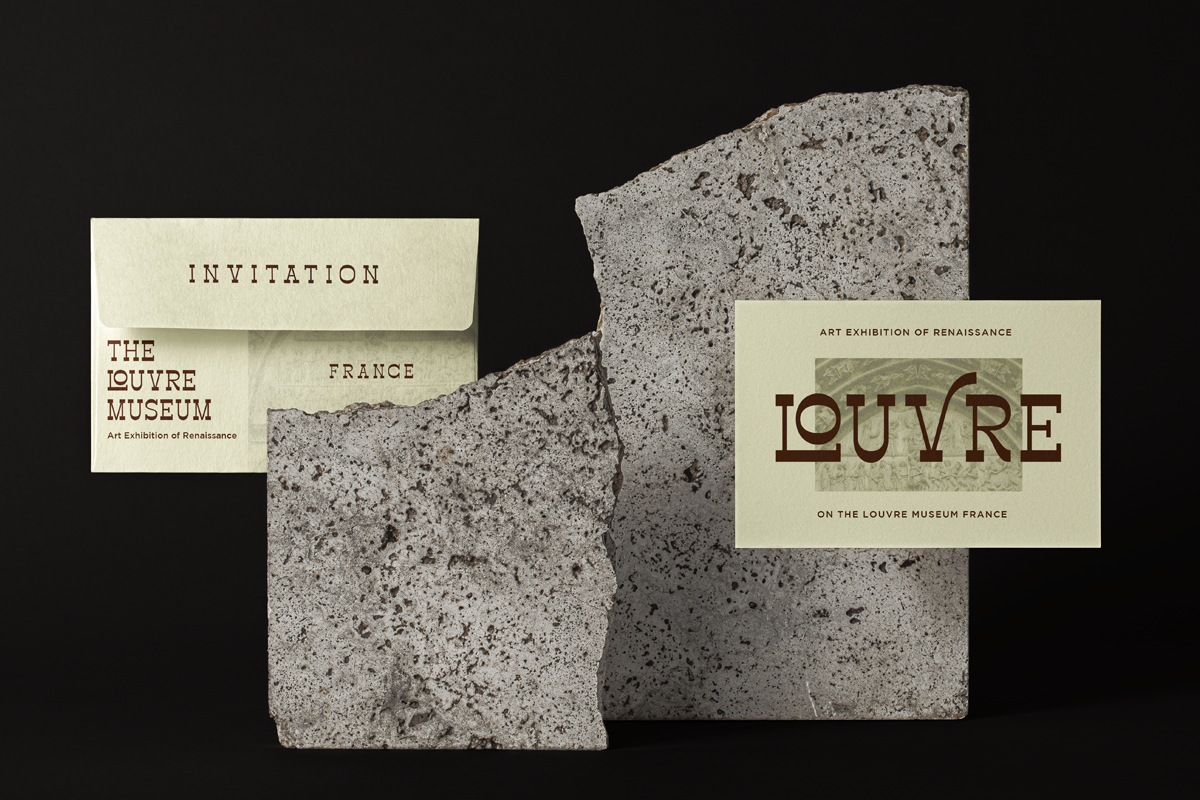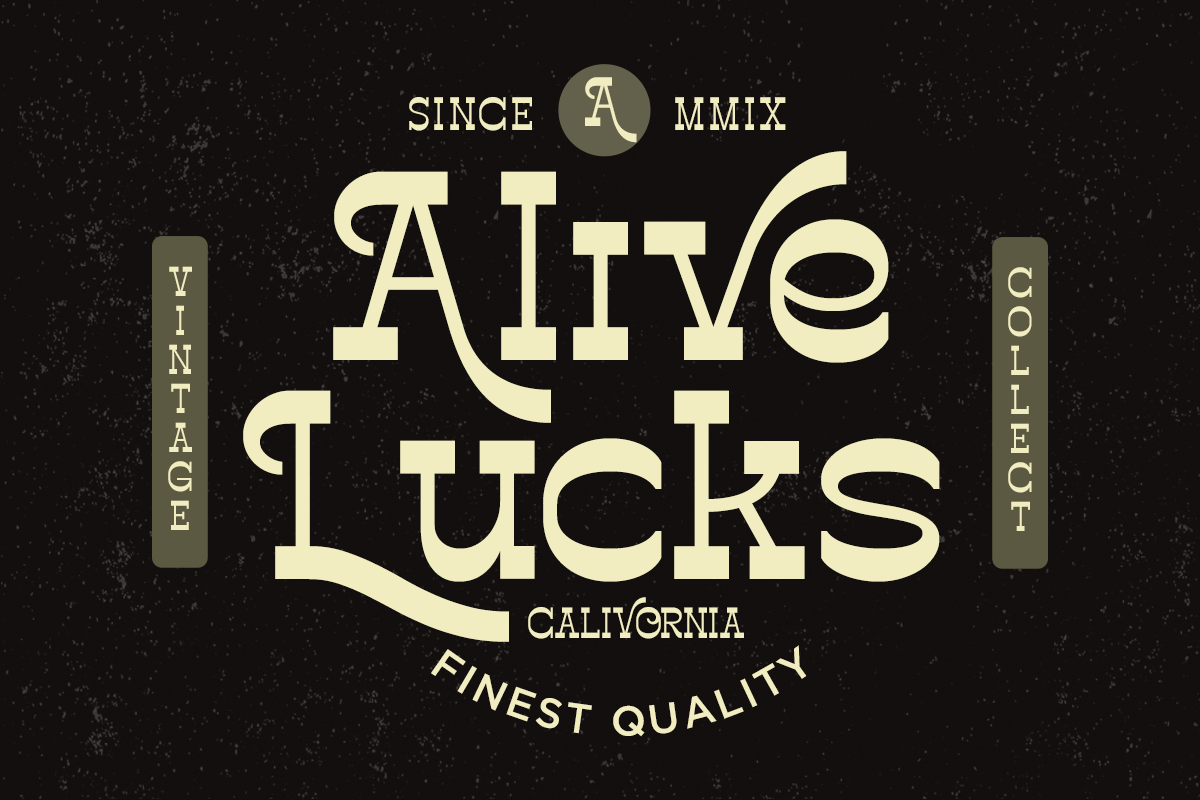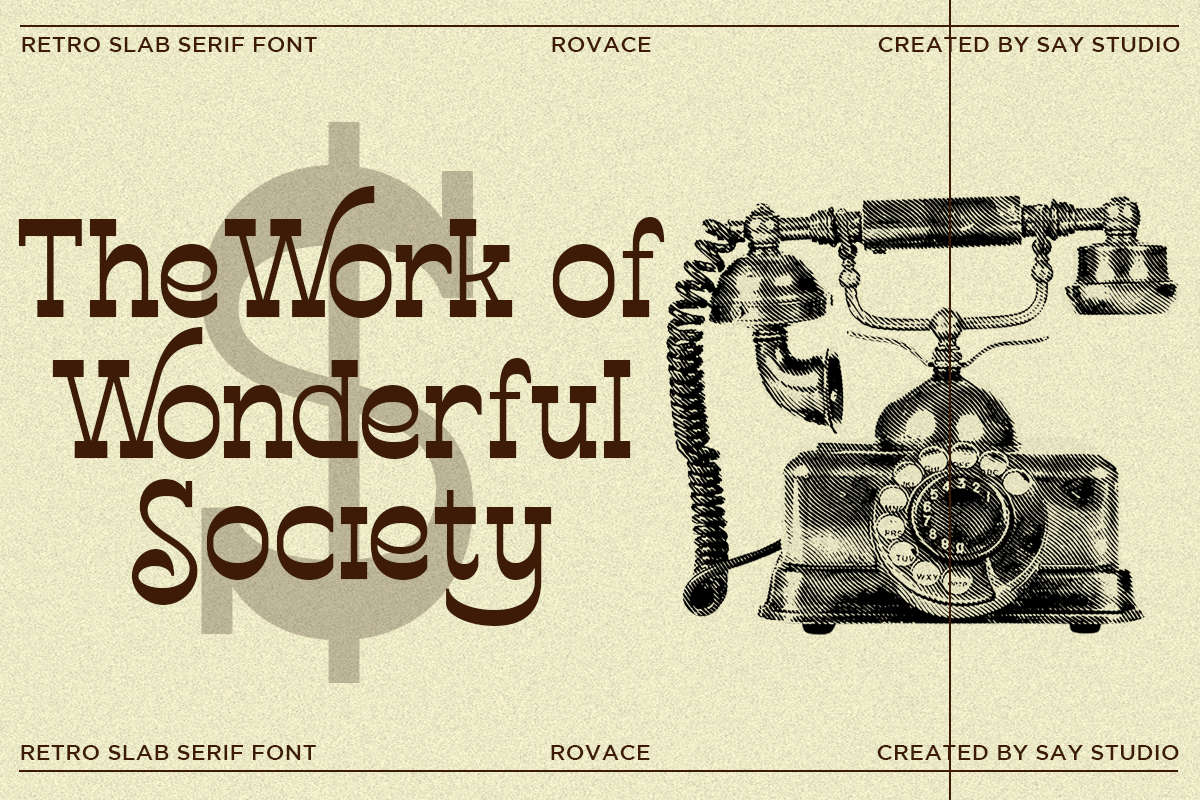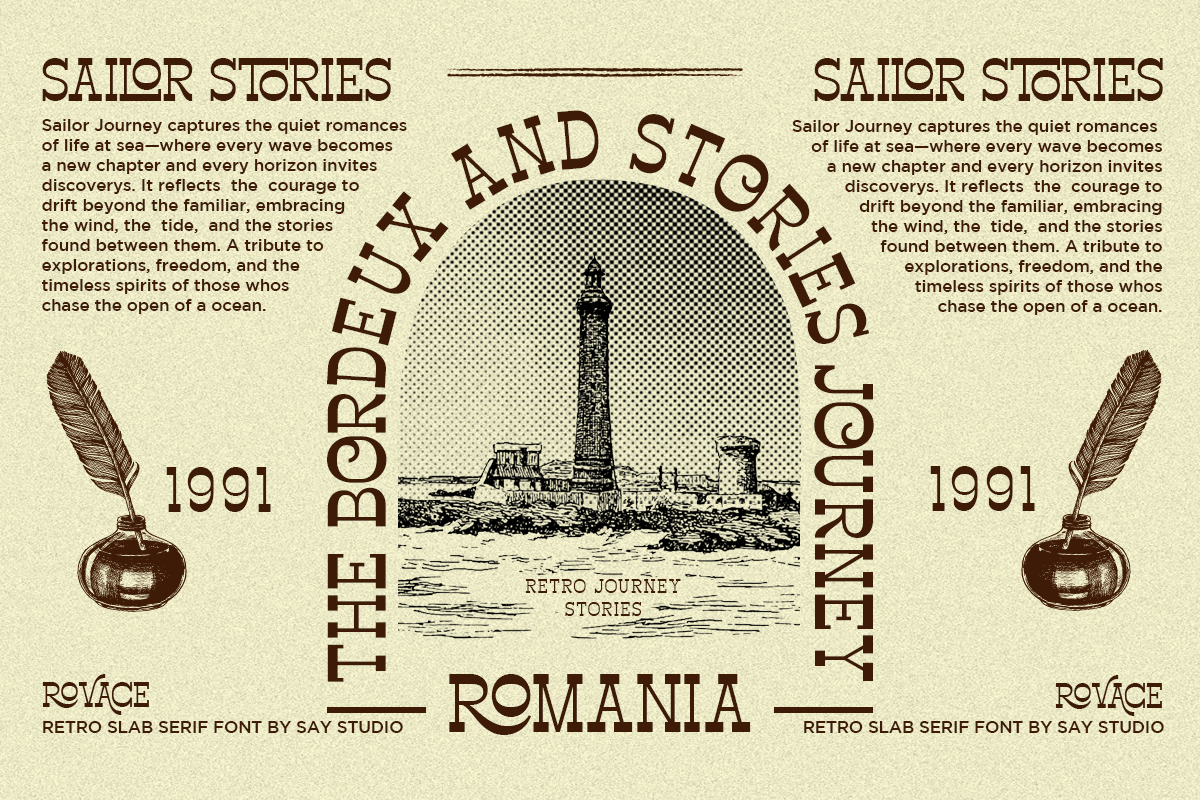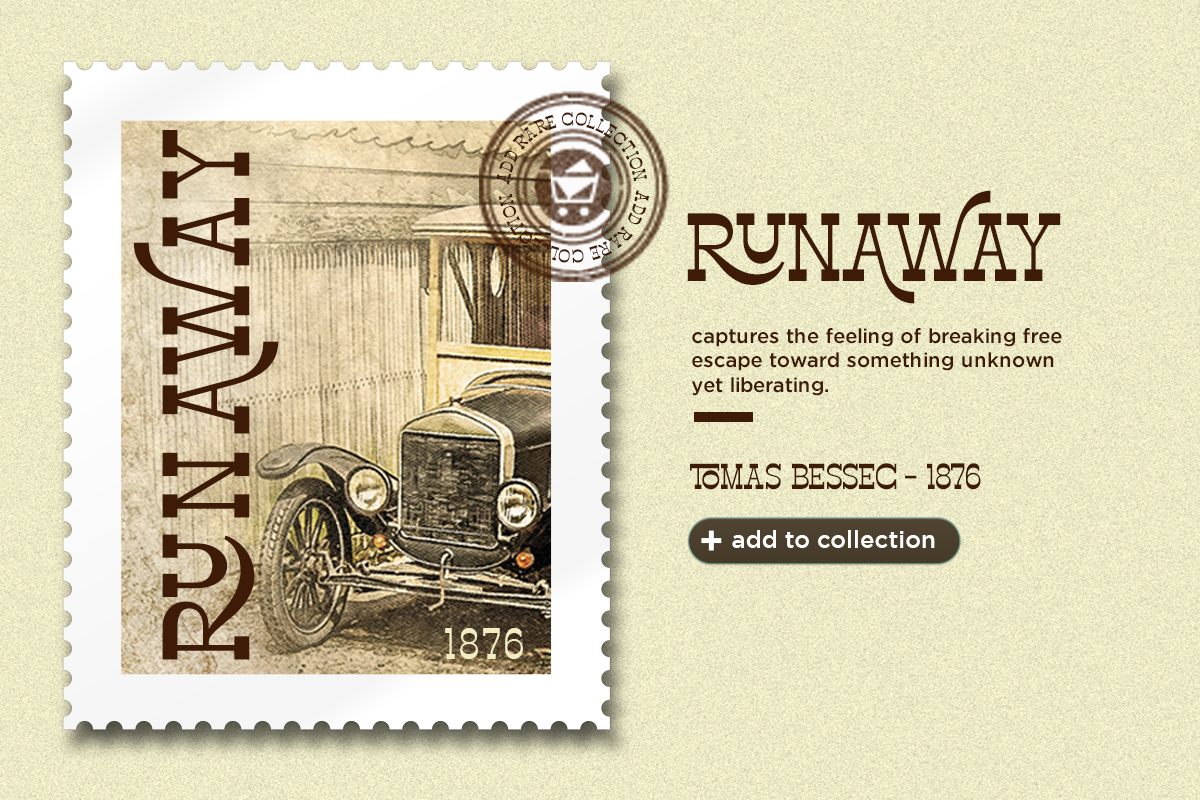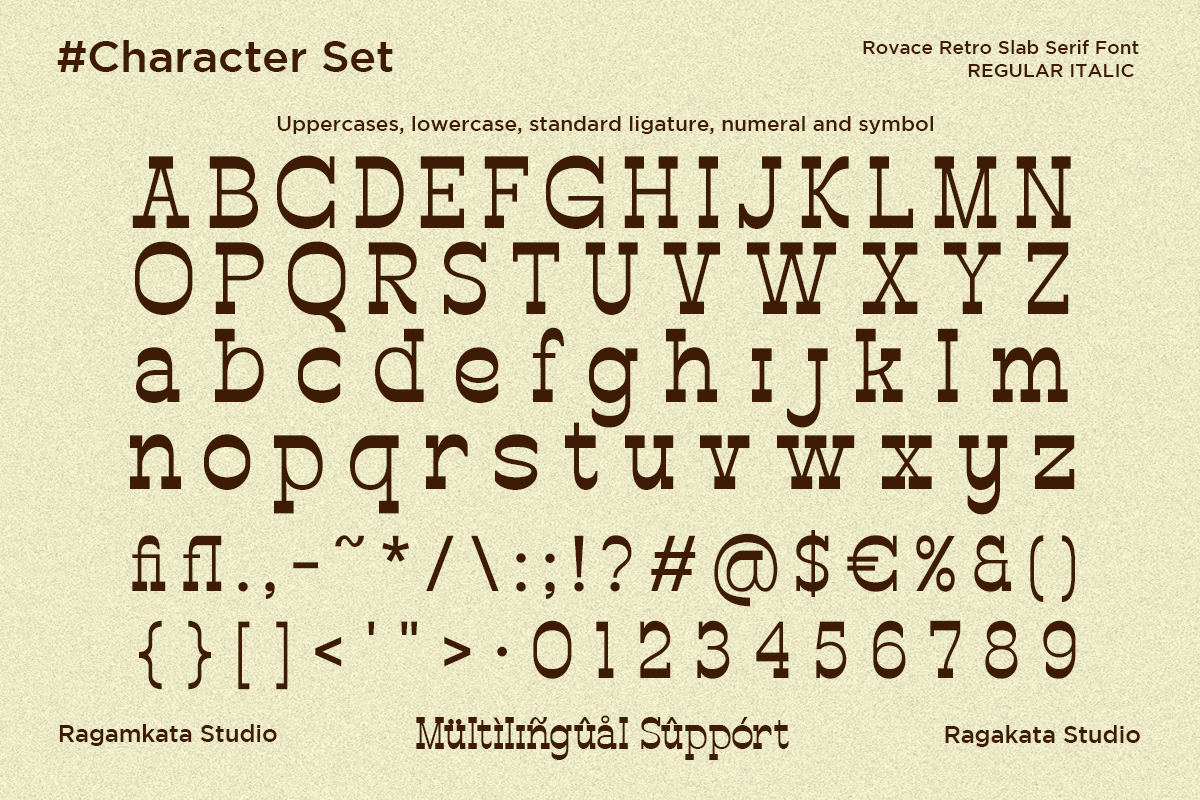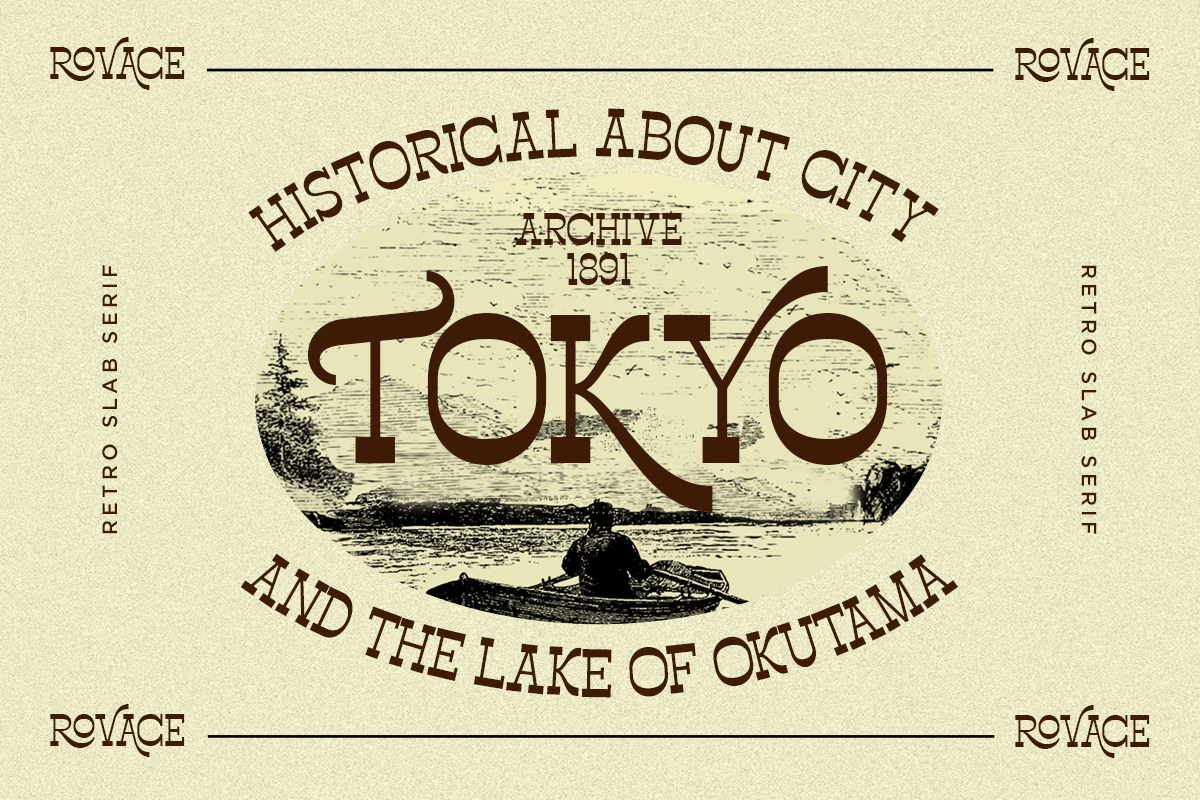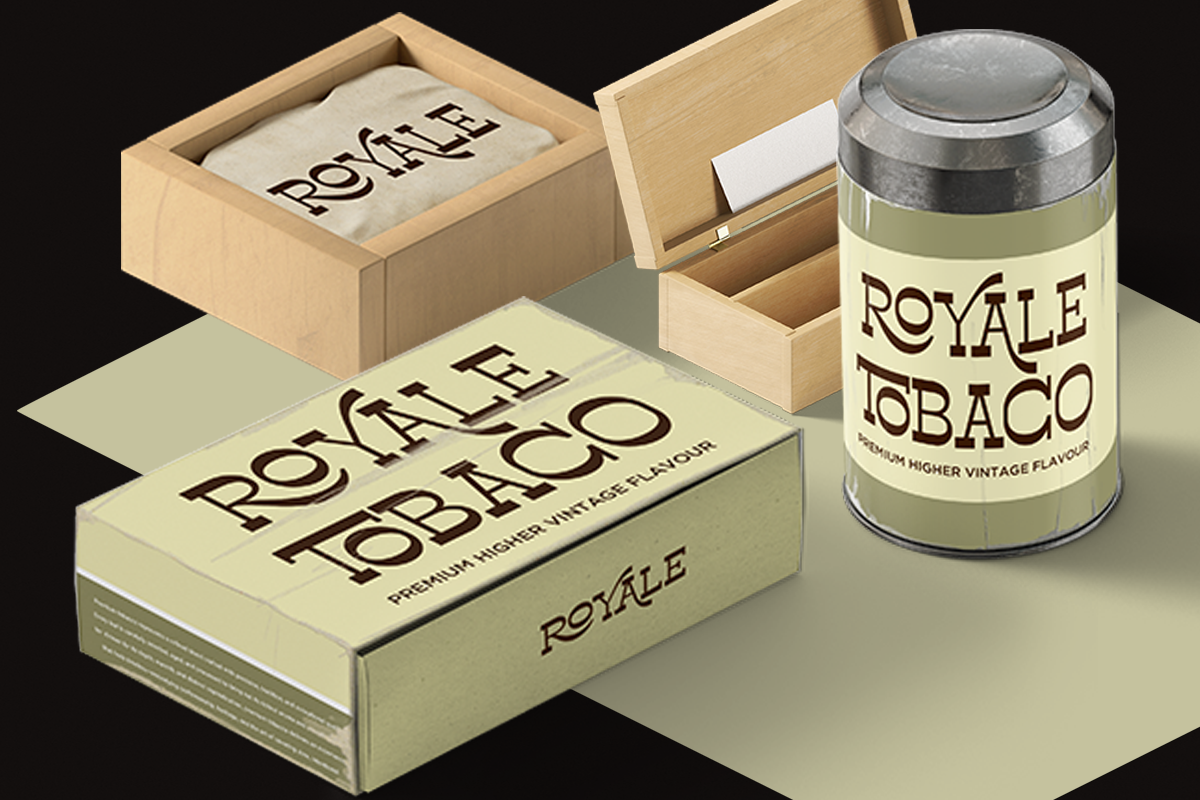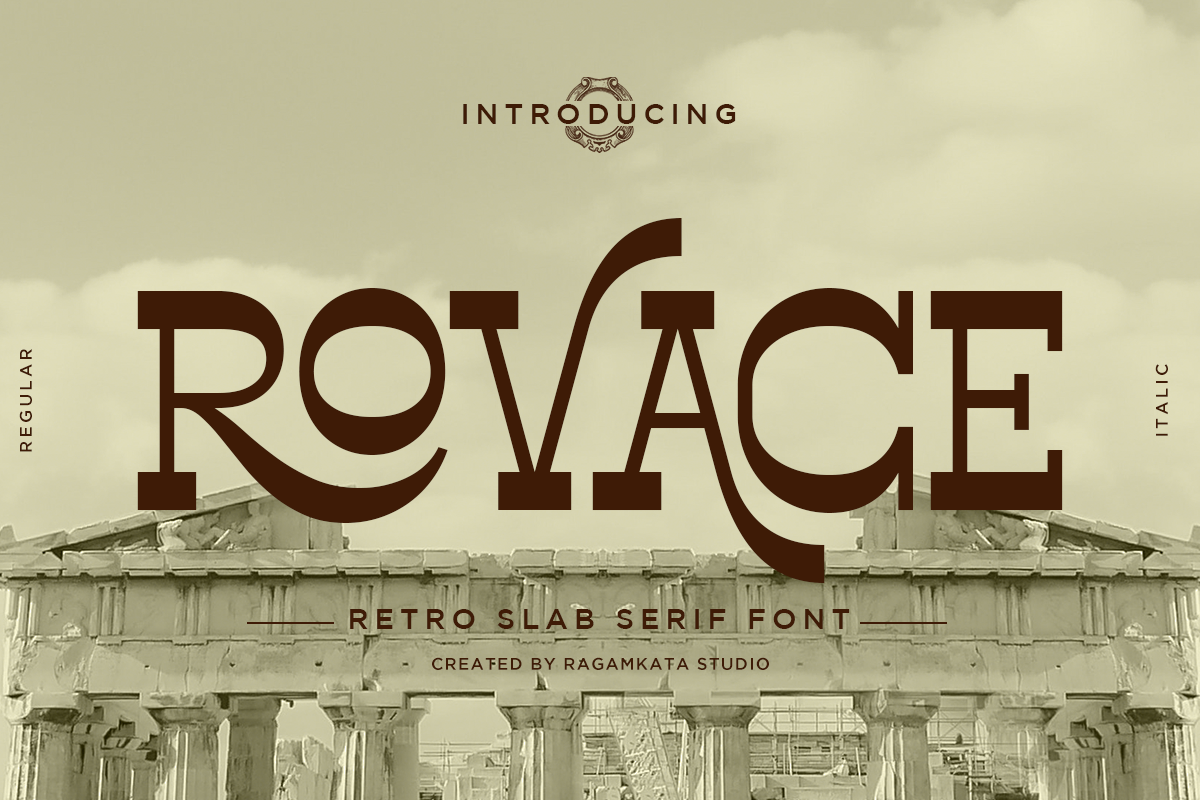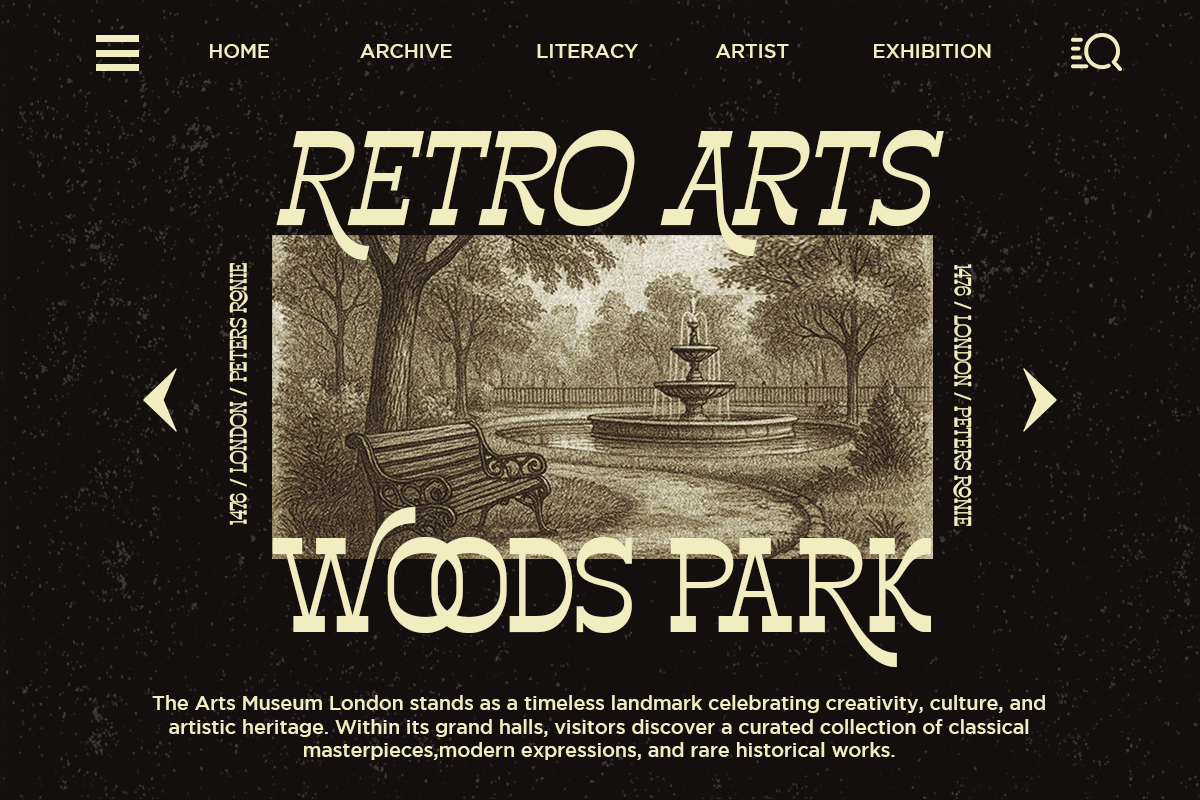
Rovace - Retro Slab Serif Font
Rovace is a bold and expressive retro slab serif font that blends classic vintage curves with strong geometric structure. Designed with distinctive swashes, sharp slab edges, and elegant letterforms, Rovace brings a powerful nostalgic feel while remaining clean and modern. Perfect for branding, logos, posters, packaging, editorial titles, and high-impact typography, this font delivers a timeless aesthetic inspired by ancient architecture and traditional craftsmanship. Whether you’re creating premium branding or standout display designs, Rovace offers a unique visual identity that elevates every project.